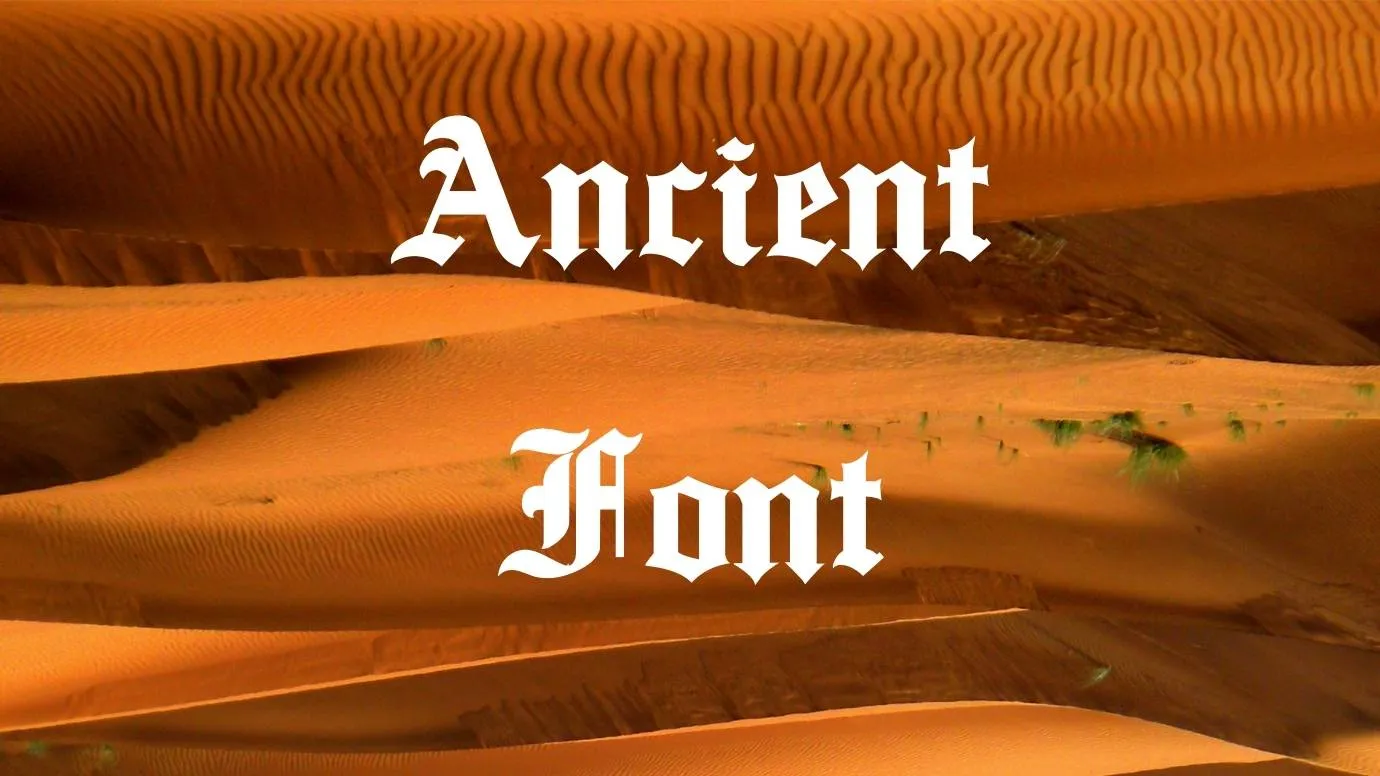
In this post, I shall give you a brief description of a stylish and interesting typeface. Hogan Mania Font is a stunning and awesome typeface. It is a gothic typeface and belongs to the Display family. An American typeface designer created this typeface.
Hogan Mania has a complete set of 70characters including upper and lower case letters, numbers, and special characters, It also contains a set of 43 glyphs. This typeface is similar to the ice kingdom font. It also supports many different languages.
Designer of Hogan Mania Font
American typeface designer Jayde Garrow designs this stunning horror typeface in 2013.
This font style is designed with a unique and consistent style. This single attractive style is a mixture of various characteristics, containing upper- and lower-case letters, numbers, punctuations, symbols, special characters, glyphs, and multiple language support.
View of Hogan Mania Font
| Name | Hogan Mania Font |
| Style | Gothic |
| Designer | Jayde Garrow |
Who owns the Hogan Mania typeface?
This typeface owns by Jayde Garrow.
Is Hogan Mania Font a good font for PowerPoint?
Yes, this typeface is good for PowerPoint. You can create fabulous presentations with this typeface.
Is Hogan Mania typeface a monospaced font?
No, it is not a monospaced typeface. It is a gothic typeface.